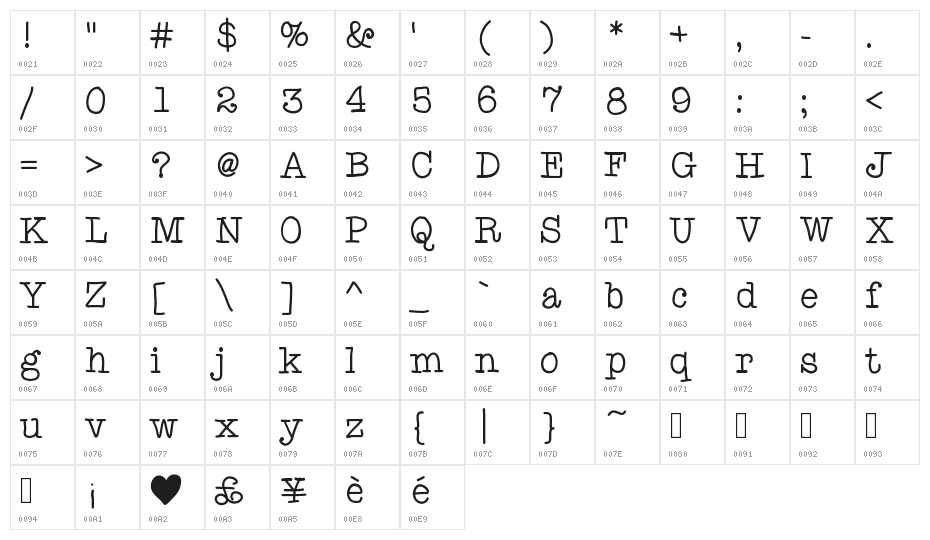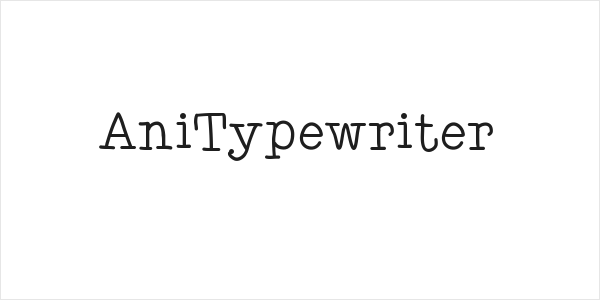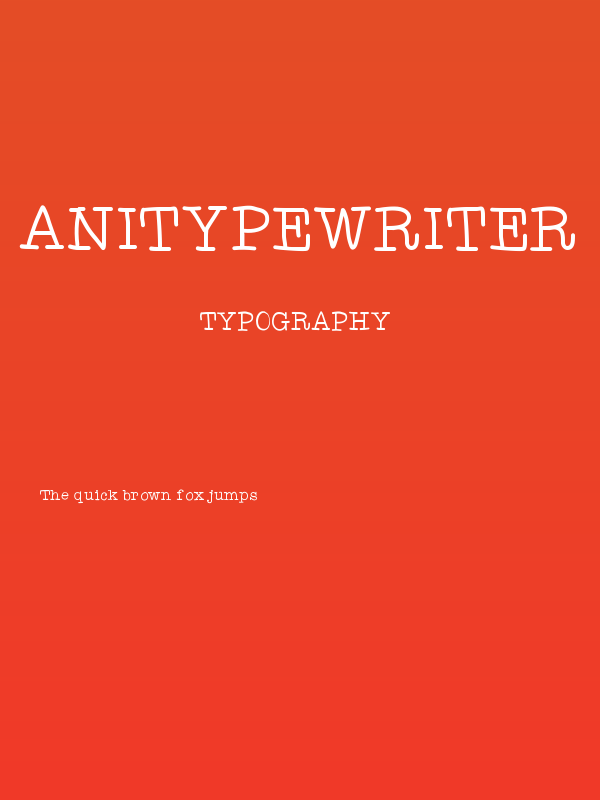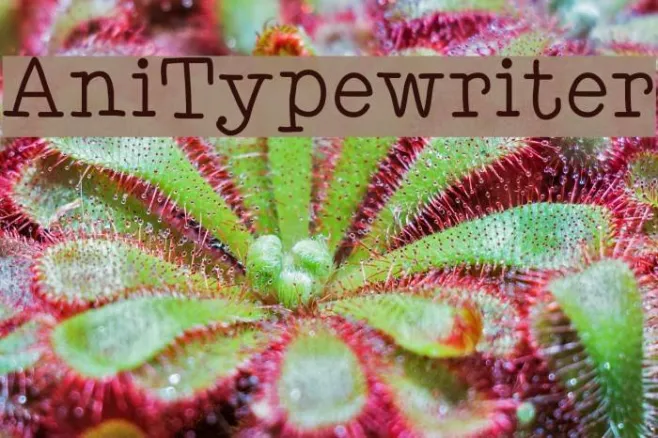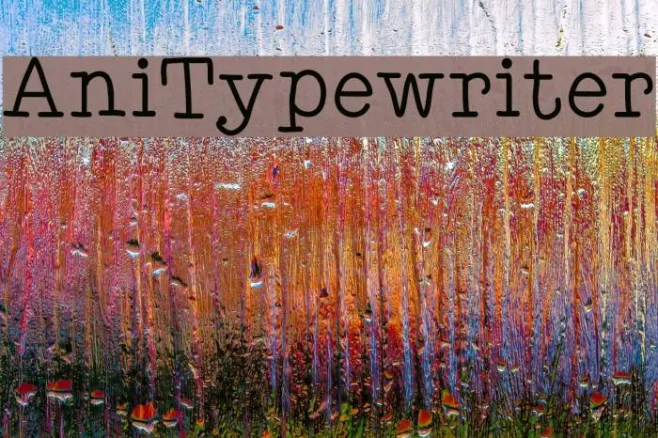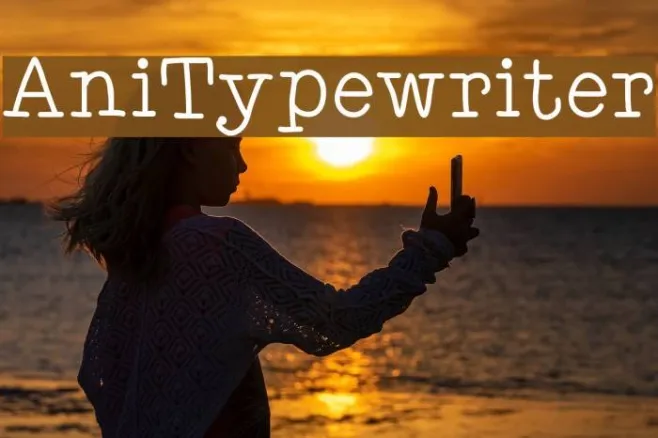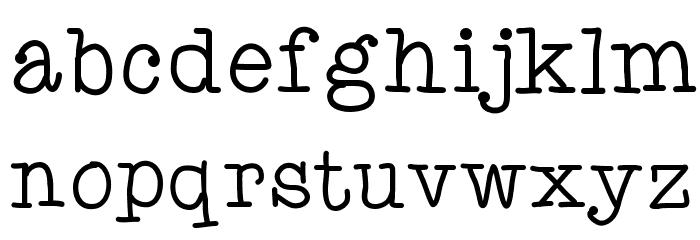
AniTypewriter Font
AniTypewriter Description
This font embodies the classic typewriter aesthetic, characterized by its monospaced letters and distinct, mechanical appearance. Each character is evenly spaced, creating a uniform and orderly look. The letters have a slight serif, adding a touch of elegance to the otherwise utilitarian design. The rounded edges of the characters soften the overall appearance, making it approachable and nostalgic. This font captures the essence of vintage typewriters, evoking a sense of history and craftsmanship. It is perfect for projects that aim to convey a retro or analog feel, while still maintaining readability and clarity.
| Use Case | Logos, Headlines, Body text |
| Proposed Projects | Ideal for retro-themed designs, typewriter art, vintage branding, and editorial projects. |